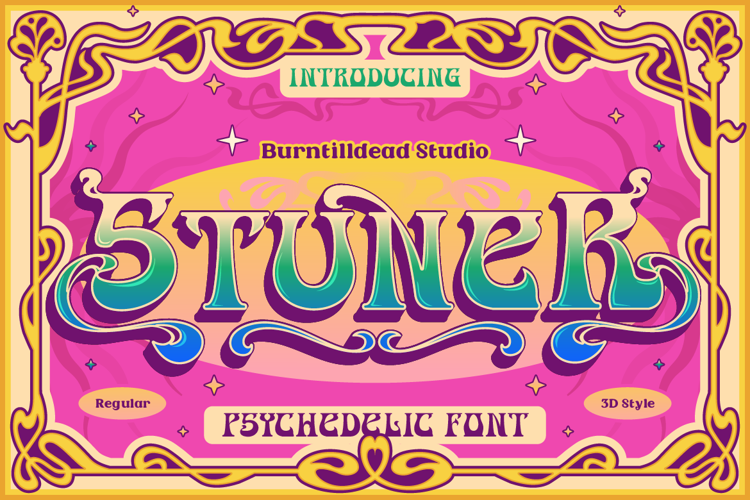
Stuner Font
3D Style
Groovy psychedelic font with trippy 3D extrude effect. Perfect for music posters, vintage logos & 60s-inspired designs. Includes regular + extrude styles!